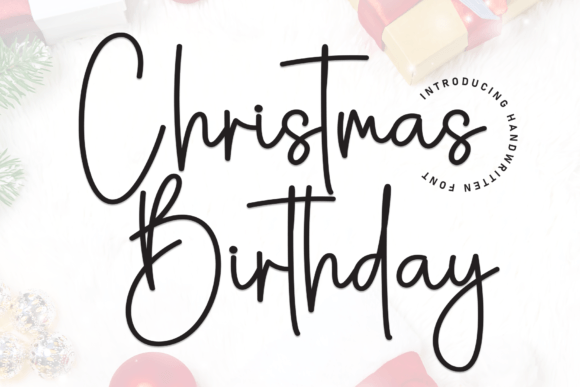
Introducing Christmas Birthday Font, a delightful and charming addition to your font collection. Created with passion and expertise by the talented Roronoa zoro.S.P.D, this script font is designed to captivate and inspire. With its sweet and friendly handwritten style, Christmas Birthday Font is the perfect choice for all your creative endeavors.
Unleash your imagination and let Christmas Birthday Font breathe life into your designs. Whether you're crafting an email signature, designing invitations, or creating personalized stationery, this font will elevate your creations to new heights. Its natural and unique appearance adds a touch of authenticity and warmth, making it ideal for adding a personal touch to any project.
With Christmas Birthday Font, you can effortlessly convey emotions and evoke a sense of nostalgia. Its timeless appeal transports you to a world of cherished memories, like the joyous moments spent with loved ones during the holiday season. This font encapsulates the spirit of celebration, making it an excellent choice for birthday cards, festive banners, and more.
Designed with usability in mind, Christmas Birthday Font is exceptionally versatile and easy to use. Its legibility ensures that your messages are conveyed effortlessly, leaving a lasting impression on your audience. Whether you're a seasoned designer or just starting your creative journey, this font is intuitive and user-friendly, providing a seamless experience every time.
With its impeccable attention to detail, Christmas Birthday Font guarantees a professional and polished finish to all your projects. Its fine strokes and elegant curves create a visually striking appearance that demands attention. Stand out from the crowd and leave a lasting impact with this captivating font.
Embrace the power of Christmas Birthday Font and let it infuse your designs with personality and flair. From heartfelt messages to playful designs, this font effortlessly adapts to any style or theme. Its versatility knows no bounds, allowing you to explore endless creative possibilities.
Unlock the potential of your designs and make a statement with Christmas Birthday Font. Transform ordinary creations into extraordinary works of art that resonate with your audience. Download this best font for email signature today and experience the magic firsthand.